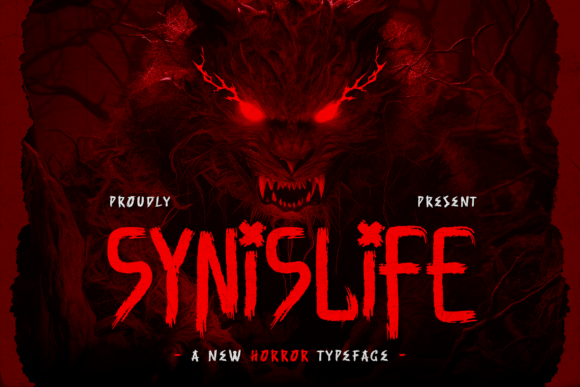
Unleashing the Horror: Experience the Synislife Font
Typography plays a crucial role in creating an atmosphere in any visual project. The right font can evoke emotions, convey messages, and even set the tone for the entire narrative. For horror enthusiasts, a font that can send shivers down their spines is a treasure. That’s where the Synislife font comes in – a masterfully designed typographic marvel that amplifies dread and tension.
The Birth of Synislife: A Font that Embodies Angst
Synislife is not just another font; it’s an experience. Its stark, jagged contours are carefully crafted to embody the angst-ridden nuances of horror aesthetics. Each character is distorted to perfection, making it the quintessence of gripping narratives. Whether you’re a horror movie enthusiast, a thriller novelist, or an event organizer, Synislife is the perfect fit for your project.
The Versatility of Synislife: Where to Use it
Synislife is not limited to a specific medium or platform. Its disconcerting style infuses a shudder-invoking aura in any application, fitting seamlessly on both digital screens and printed surfaces. Here are some of the many ways you can use Synislife:
- Chilling Title Designs: Create hair-raising title sequences for your horror movies or TV shows.
- Unnerving Movie Posters: Design eye-catching posters that will leave audiences shivering.
- Sinister Book Covers: Give your thriller novels or horror books a cover that will make readers shiver.
- Spooky Halloween Graphics: Create eerie graphics for Halloween events or parties.
- Eerie Events: Use Synislife to create an unsettling atmosphere for horror-themed events or haunted houses.
The Visual Impact of Synislife: A Profoundly Unsettling Experience
Synislife offers a profoundly unsettling visual interpretation that sends shivers down the spines of aficionados of the morbid and gruesome. Its jagged contours and distorted characters create an eerie atmosphere that draws the viewer in. Whether you’re creating a horror cinema, an edgy thriller novel, or a spooky event, Synislife is the perfect choice.
The font’s ability to evoke emotions is unparalleled. Its stark and unsettling design makes it perfect for projects that require a sense of tension and dread. When used in a horror movie title sequence, Synislife can create a sense of foreboding, setting the tone for a terrifying experience. Similarly, when used in a book cover, it can create a sense of unease, drawing readers in.
The Inspiration Behind Synislife: A Masterful Design
The designers behind Synislife drew inspiration from the world of horror and the supernatural. They aimed to create a font that would capture the essence of fear and dread, distilling it into a typographic marvel. The result is a font that is both unsettling and fascinating.
The design process involved experimenting with different shapes and forms, pushing the boundaries of traditional typography. The result is a font that is both jagged and beautiful, a true masterpiece of design.
Using Synislife: Tips and Tricks
To get the most out of Synislife, here are some tips and tricks:
- Use it sparingly: Synislife is a powerful font that can be overwhelming if overused. Use it sparingly to create a greater impact.
- Experiment with colors: Synislife looks great in bold, vibrant colors. Experiment with different colors to create a unique look.
- Pair it with other fonts: Synislife can be paired with other fonts to create a unique contrast. Try pairing it with a clean, sans-serif font for a striking effect.
Embracing the Terror: Experience Synislife
Synislife is not just a font; it’s an experience. Its stark, jagged contours and distorted characters create a profoundly unsettling visual interpretation that sends shivers down the spines of aficionados of the morbid and gruesome. Whether you’re a horror movie enthusiast, a thriller novelist, or an event organizer, Synislife is the perfect fit for your project.
So, if you’re looking to create a hair-raising horror cinema, an eerie event, or an edgy thriller novel, look no further than Synislife. Embrace the terror, experience Synislife, and send shivers down the spines of your audience.